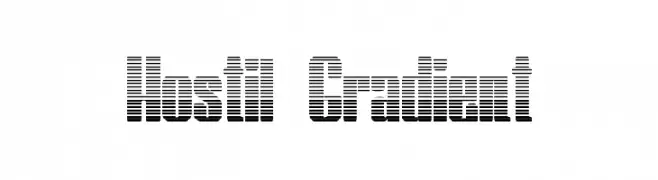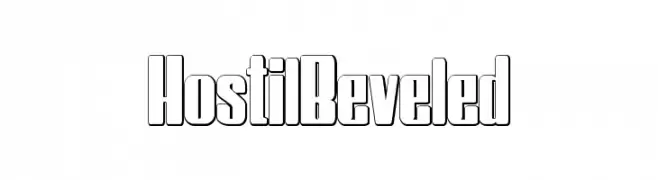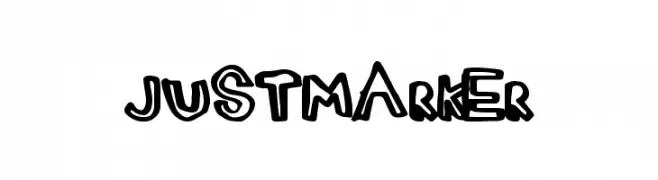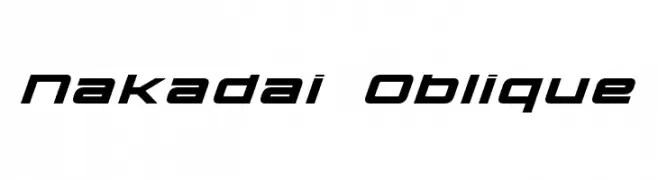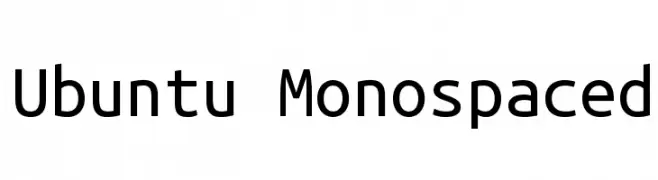
A modern, monospaced typeface with uniform spacing and a clean, geometric design.
A bold, futuristic font with geometric shapes and tight spacing.
A bold, script-like font with monospaced characteristics and tight spacing.
A sleek, modern, and condensed font with a light weight and tight spacing.
A sleek, modern condensed font with geometric elements and tight spacing.
A bold, playful font with rounded, bulbous characters and tight spacing.
A modern, oblique font with a bold, geometric style and tight spacing.
A playful, hand-drawn font with a bold, marker-like style and tight character spacing.